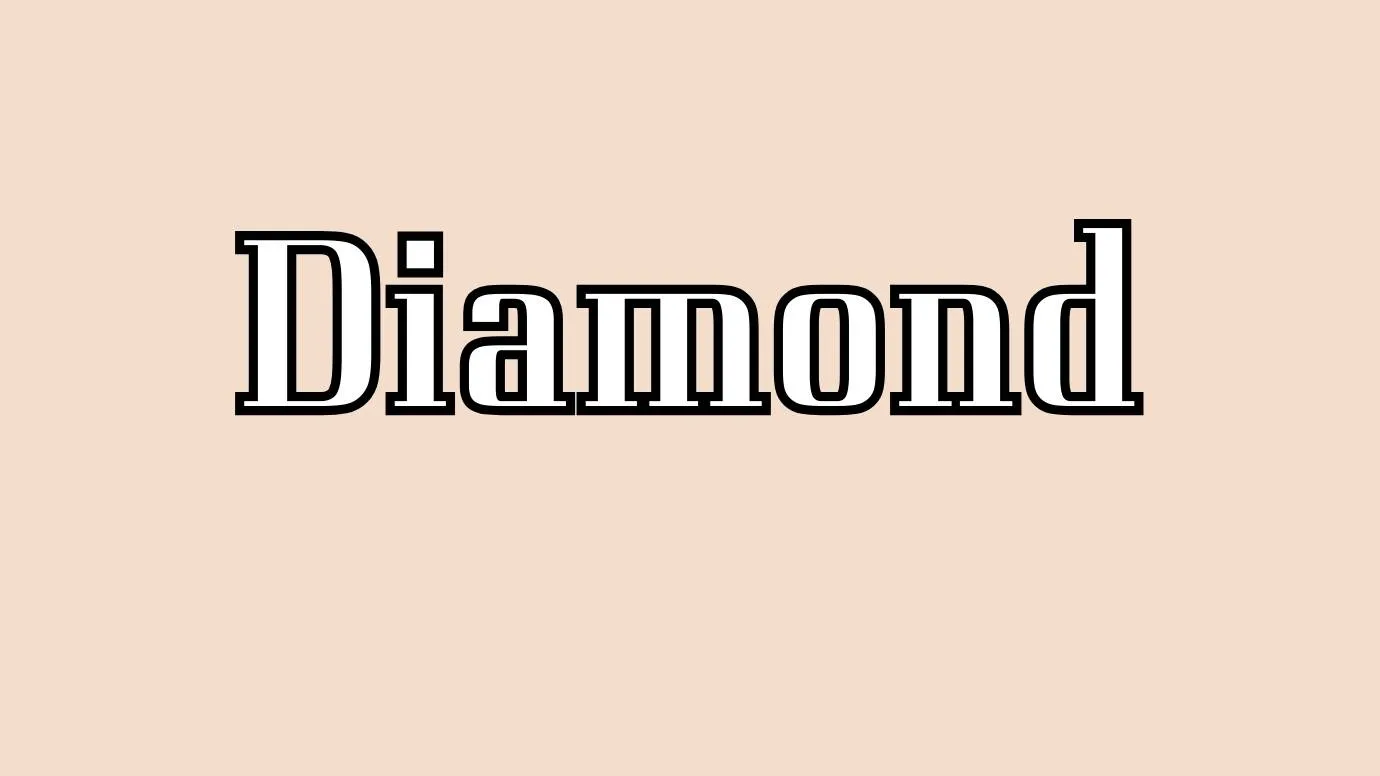
Diamond Font Family has a lot of advanced features. Hannes von Döhren is a very intelligent designer in the font design industry who works on the creation of this typography. This typeface is categorized in the category of serif family of fonts.
Diamond Font
NameDiamond Font
TypeSerif
DesignerHannes von Döhren